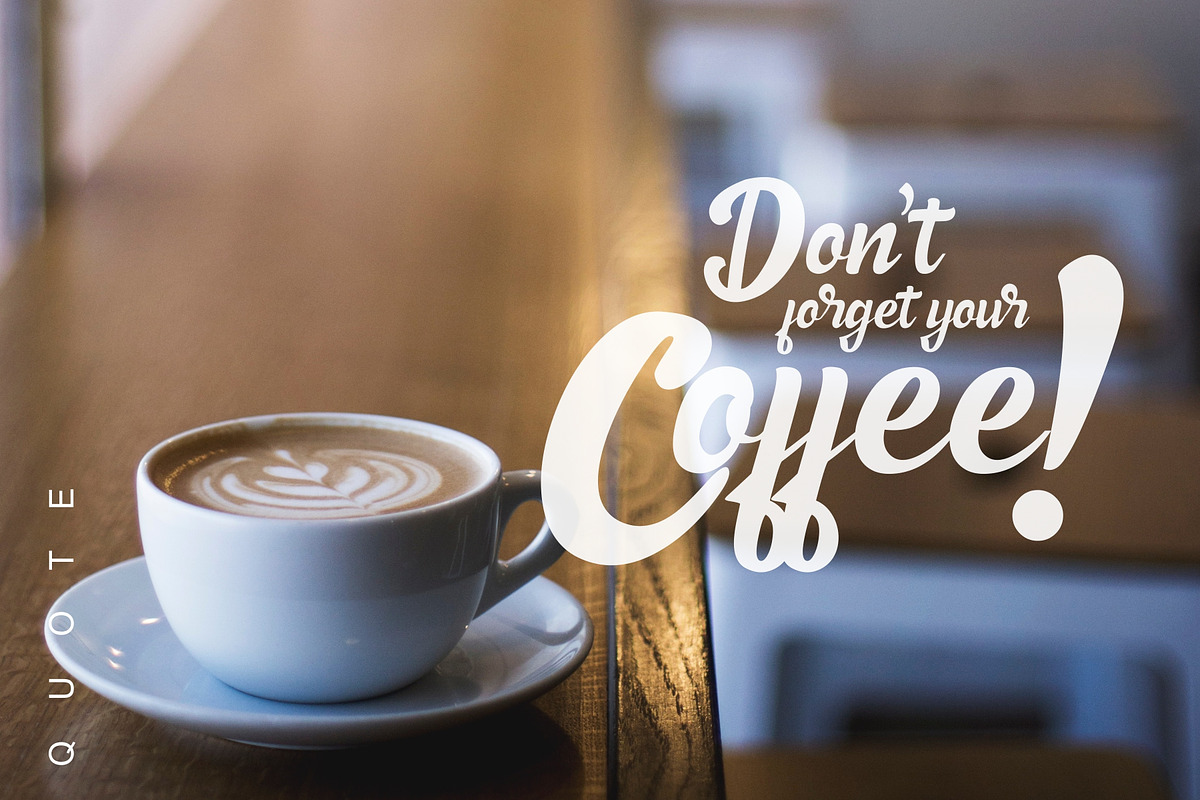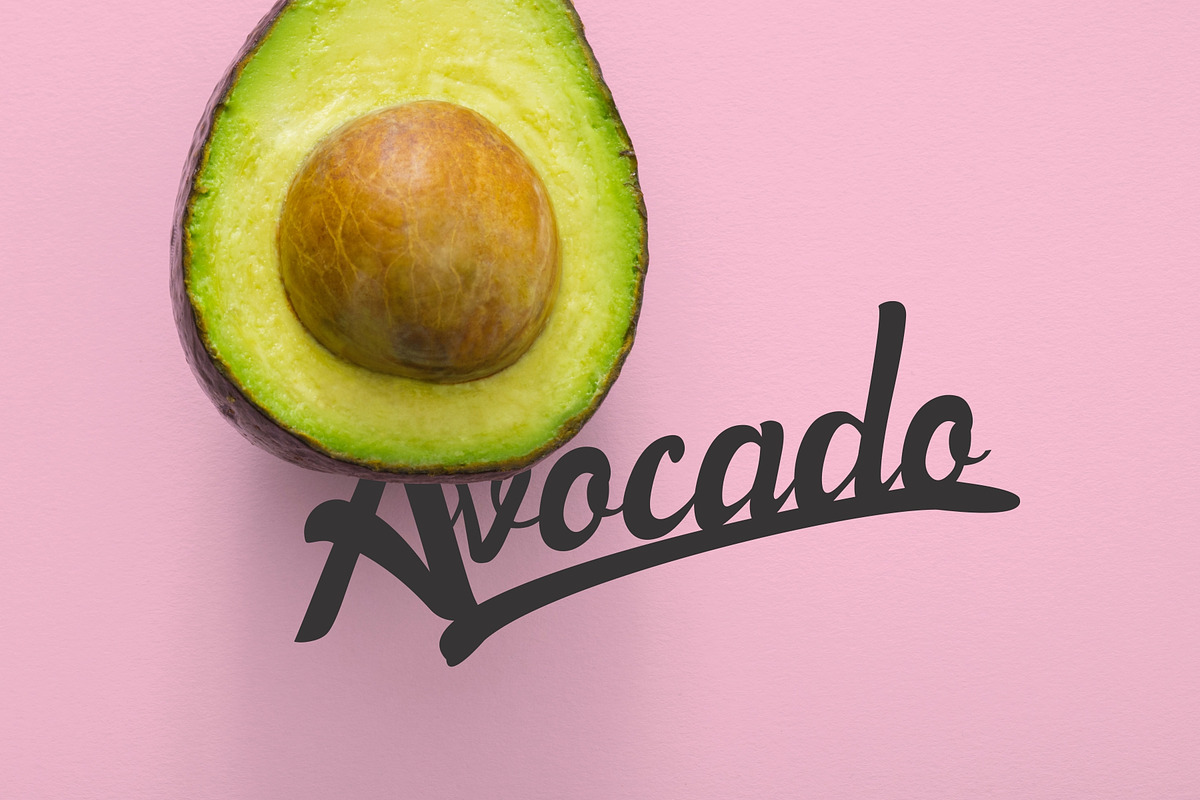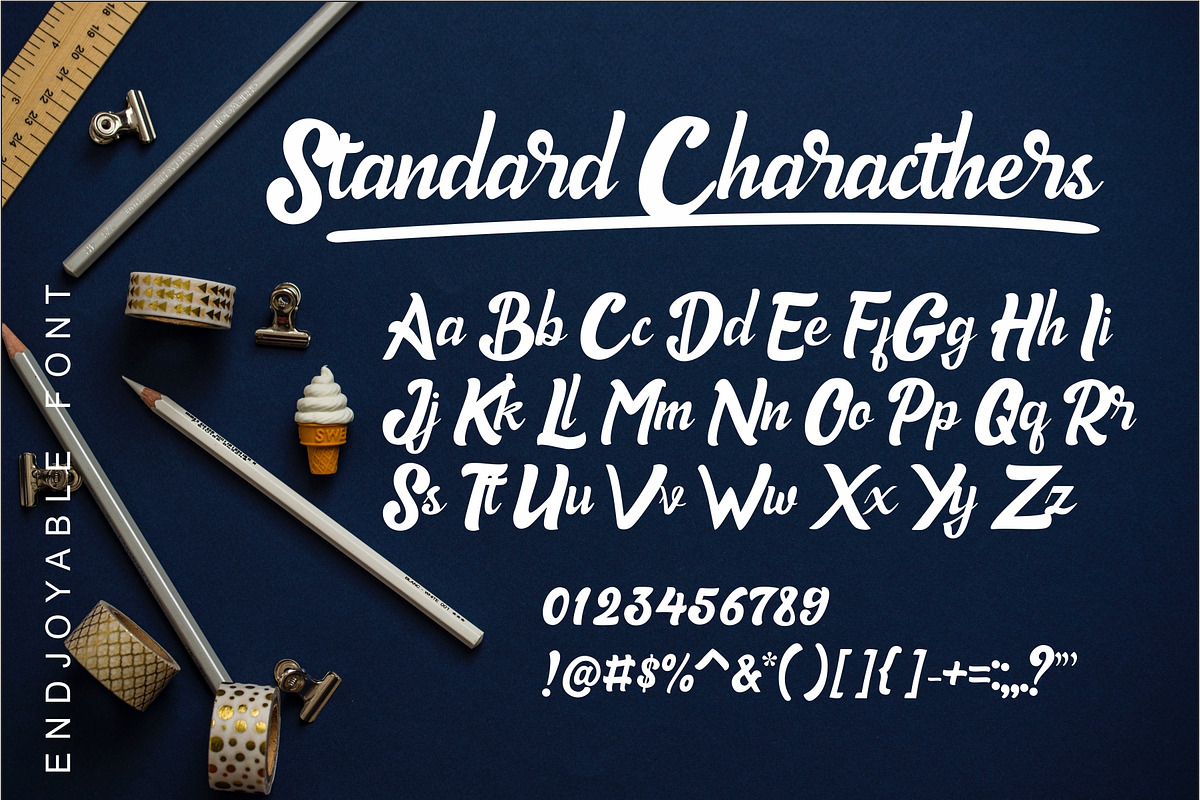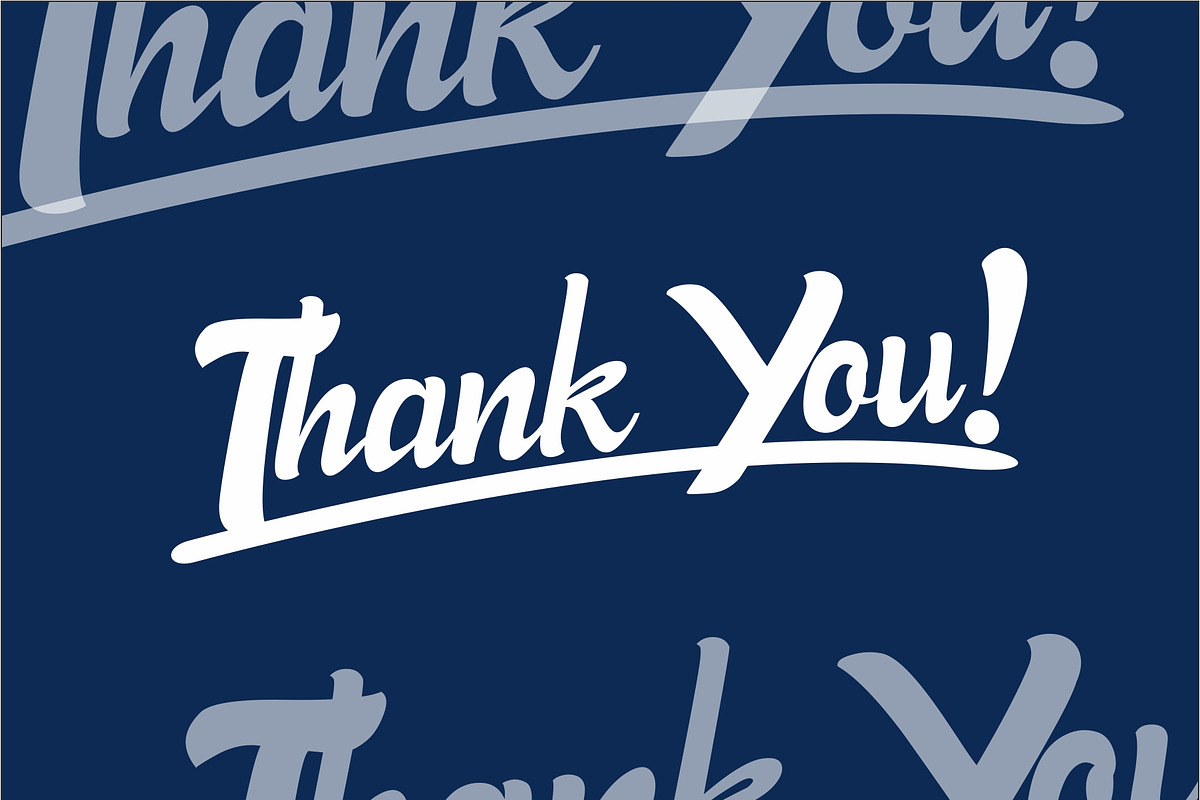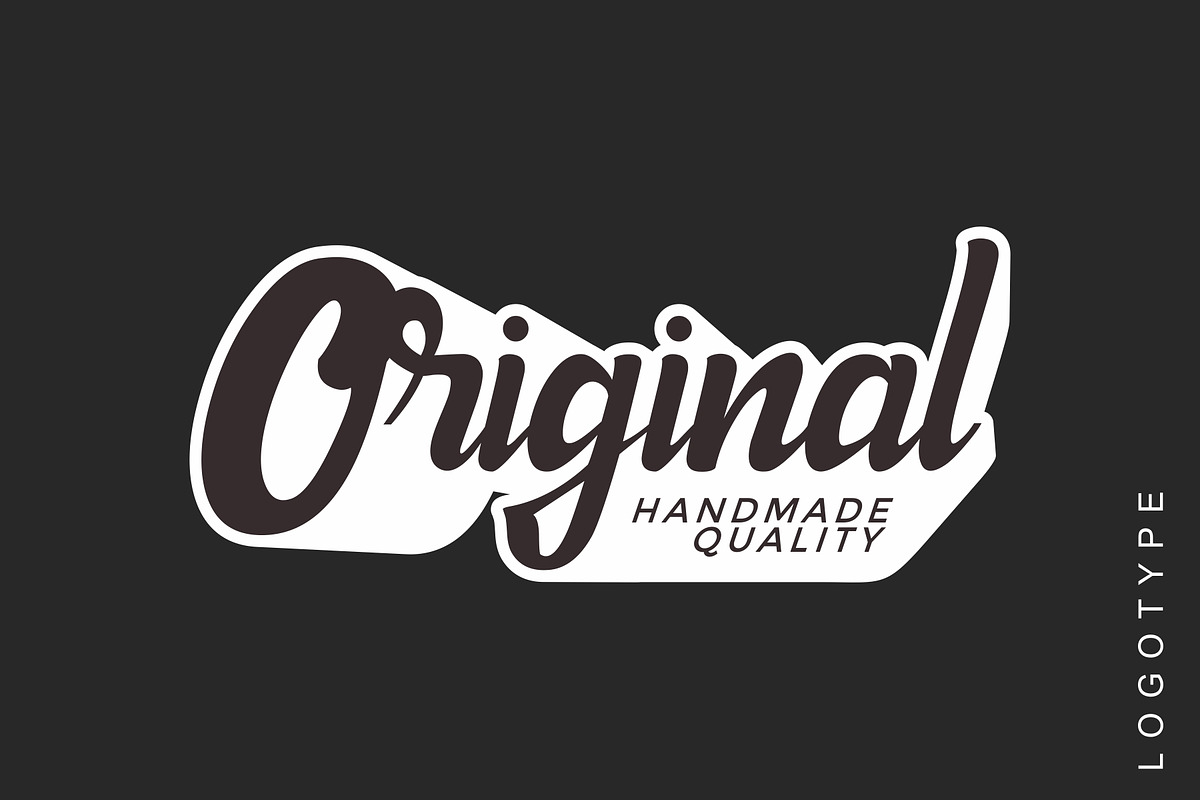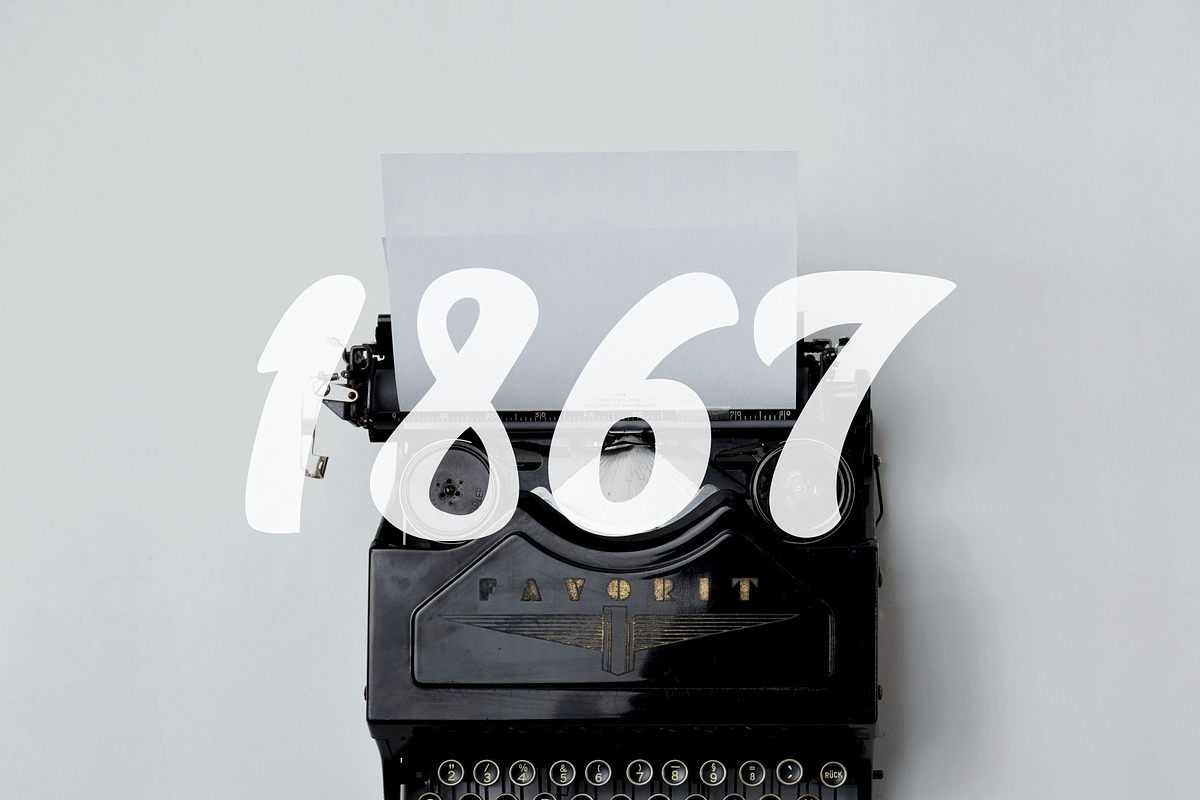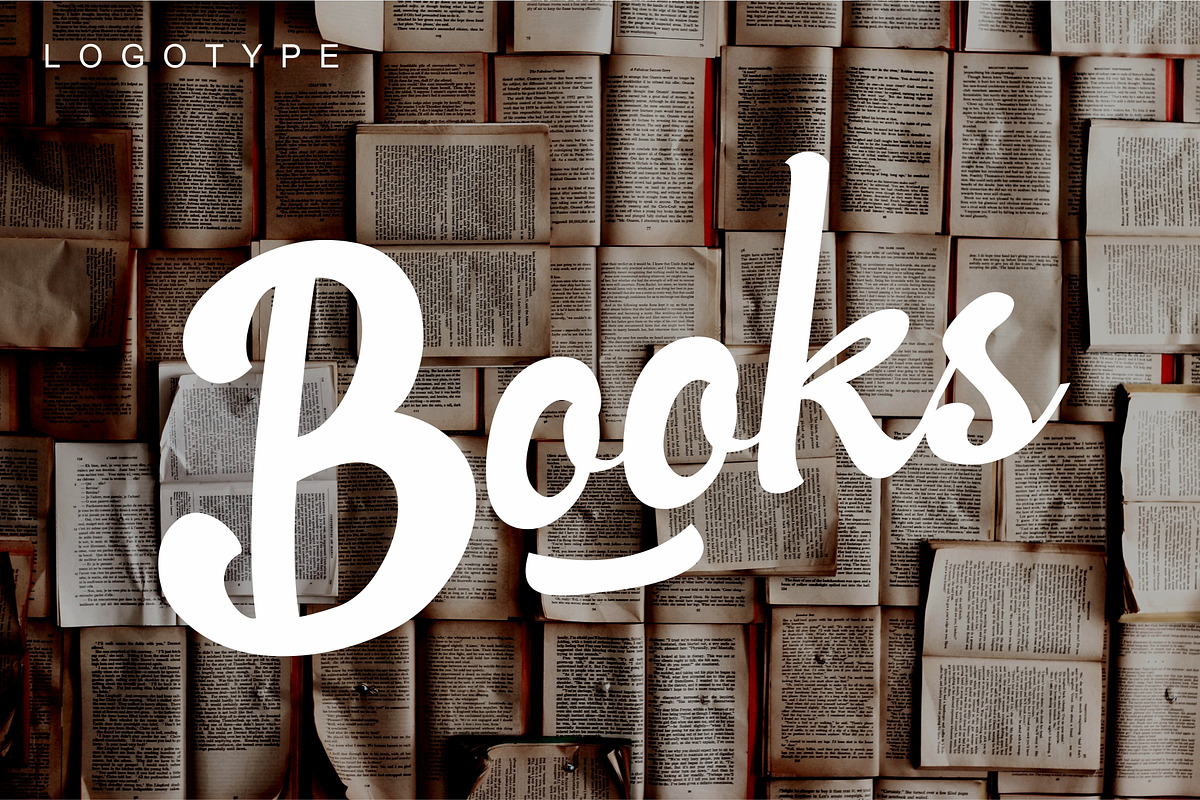
Endjoyable Brush Lettering Font
ENDJOYABLE is my second font after SIKOTAK
This is my first script font, it fit for you who like to make a beautiful quote on your Instagram or another of social media accounts.
Why Endjoyable Brush Lettering Font is worth a look
Endjoyable Brush Lettering Font by malikjabbarali fits naturally into Branding, posters, packaging, typography.